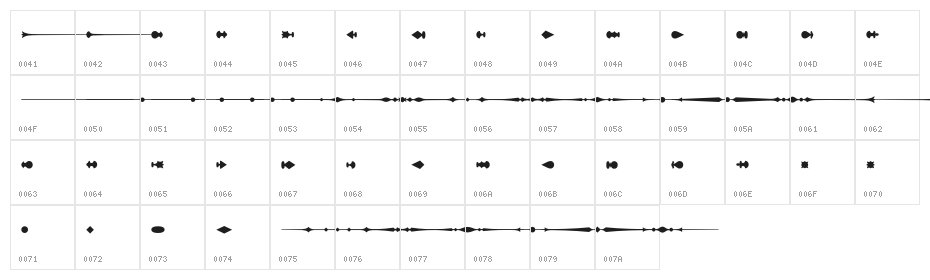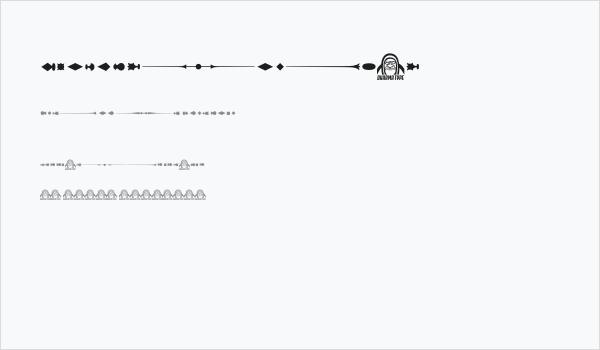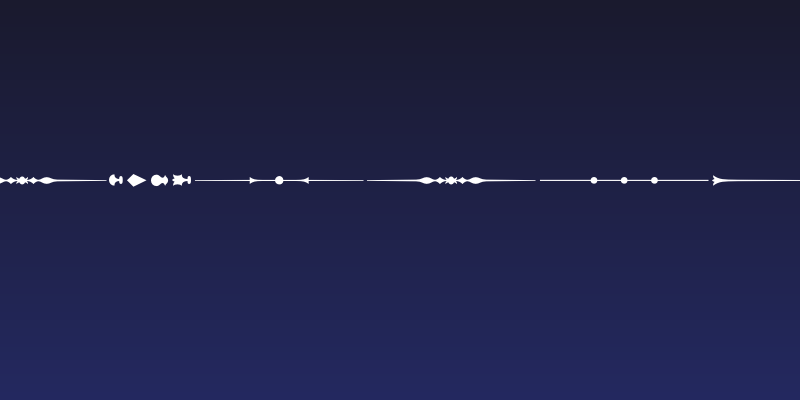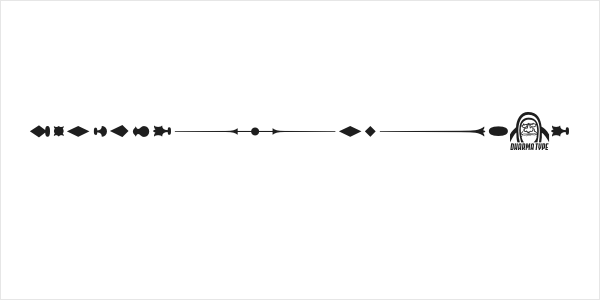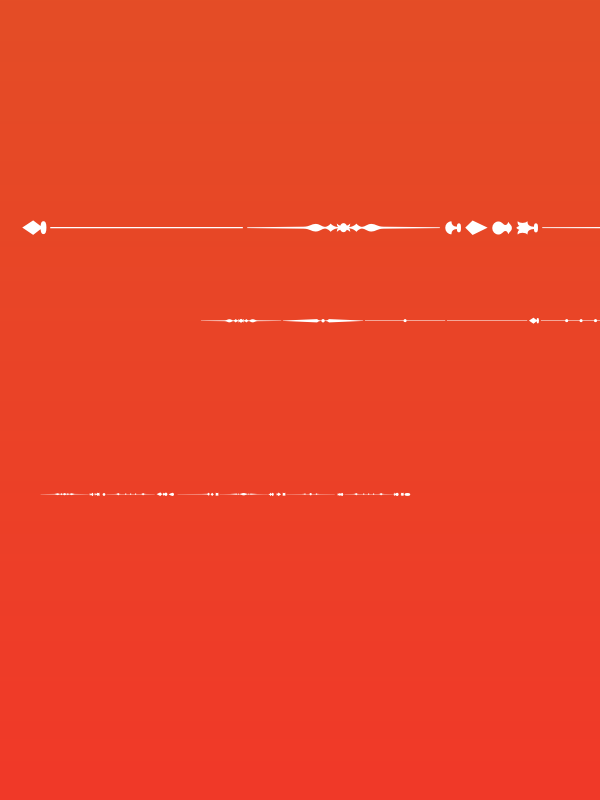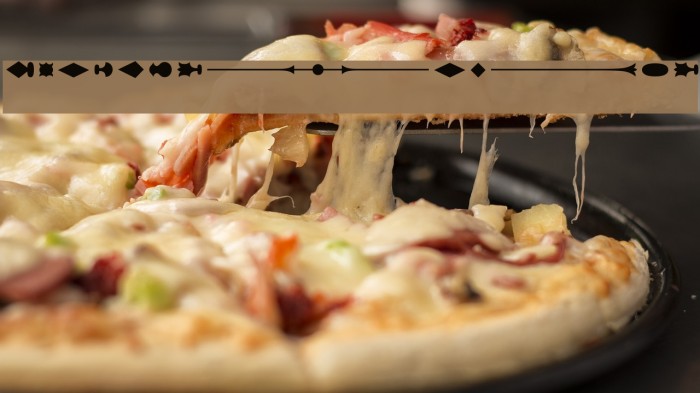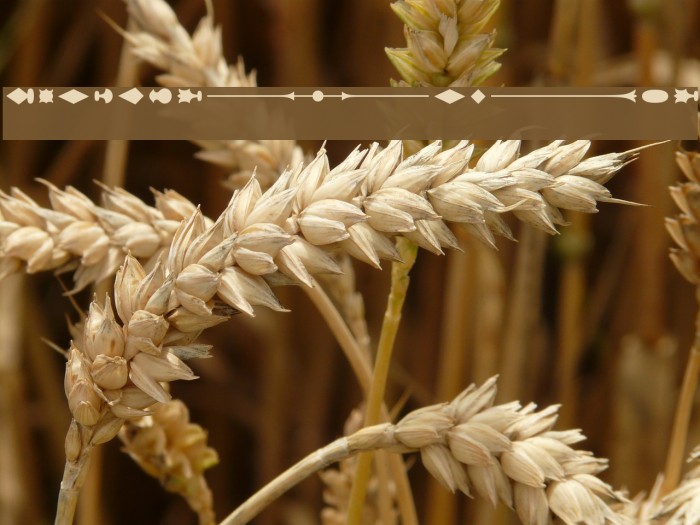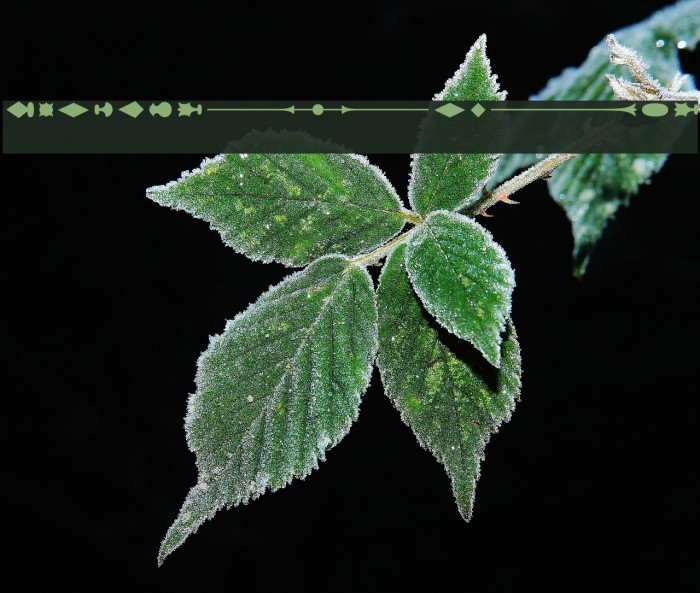
GothicExtras-E Font
GothicExtras-E Description
This image showcases a collection of decorative elements and borders with a gothic aesthetic. The design features intricate patterns and motifs that are reminiscent of medieval art and architecture. These elements are characterized by their bold, dark lines and symmetrical arrangements, creating a sense of drama and elegance. The use of repetitive shapes and forms adds to the overall cohesiveness of the design, making it suitable for projects that require a touch of historical or fantasy-inspired flair.
| Overall Style | Gothic, Decorative |
| Use Case | Borders, Decorative elements |
| Proposed Projects | Ideal for use in book covers, posters, invitations, or any design project that seeks to incorporate a gothic or medieval theme. |